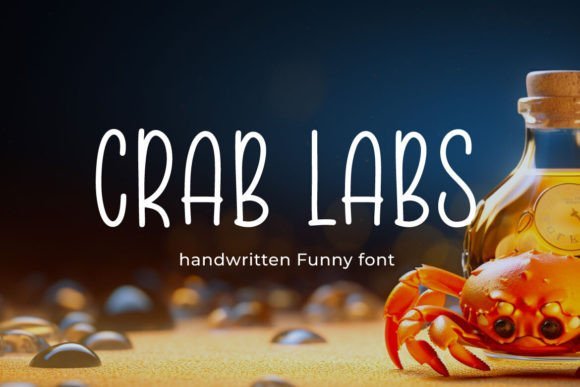
Discovering the Perfect Font: A Designer’s Delight
It’s that moment when you’re brainstorming ideas for a new project, and suddenly, the perfect font pops into your mind. For designers, finding the right font can make all the difference between a decent design and a stunning one. And, for me, that perfect font was the elegant **Crab Labs Font**.
With its delicate strokes and slender lines, **Crab Labs Font** exudes an air of sophistication and refinement. Whether used in logos, headlines, or body text, this font adds a touch of subtleness and finesse to any design. Its modern and minimalist aesthetic makes it a valuable asset for designers looking to create clean and visually appealing designs. Whether you’re a seasoned pro or just starting out, **Crab Labs Font** is definitely worth exploring.
Crab Labs Font Key Features
- Unique Characteristics: The font features a unique blend of geometric and organic shapes, creating a distinctive and eye-catching visual identity.
- Font Style: The font family includes a range of styles, from bold and condensed to light and italic, offering versatility for various design applications.
Crab Labs Font Review
I recently had the chance to work with the Crab Labs Font, and I must say it’s an interesting choice. ✨ The font’s unique, quirky style is sure to stand out in any design project. The bold lines and playful curves add a touch of whimsy that’s perfect for creative industries like advertising or entertainment.
One of the things I appreciate about Crab Labs Font is its versatility. ✨ It comes in a range of weights, from light to bold, making it easy to use in a variety of contexts. The font also has a nice range of OpenType features, including ligatures and alternates, which can add an extra layer of sophistication to your designs.
- ⚠️ The font’s quirks can be a bit overwhelming at times, making it difficult to read in large blocks of text.
- ⚠️ The font’s weight range is not as extensive as some other fonts, which can limit its use in certain situations.
Overall, I think Crab Labs Font is a great choice for designers who want to add a bit of personality to their work. While it may not be the most versatile font, it’s certainly a unique and eye-catching option that can help your designs stand out.
Crab Labs Font is a great choice for creating unique and eye-catching designs in Canva.
Crab Labs Font is a versatile font that works well in a variety of design applications.
Crab Labs Font is a great choice for adding a touch of personality to your presentations and documents.
Crab Labs Font is a great choice for:
- Creating unique and eye-catching designs.
- Adding a touch of personality to presentations and documents.
- Designing creative and engaging social media graphics.